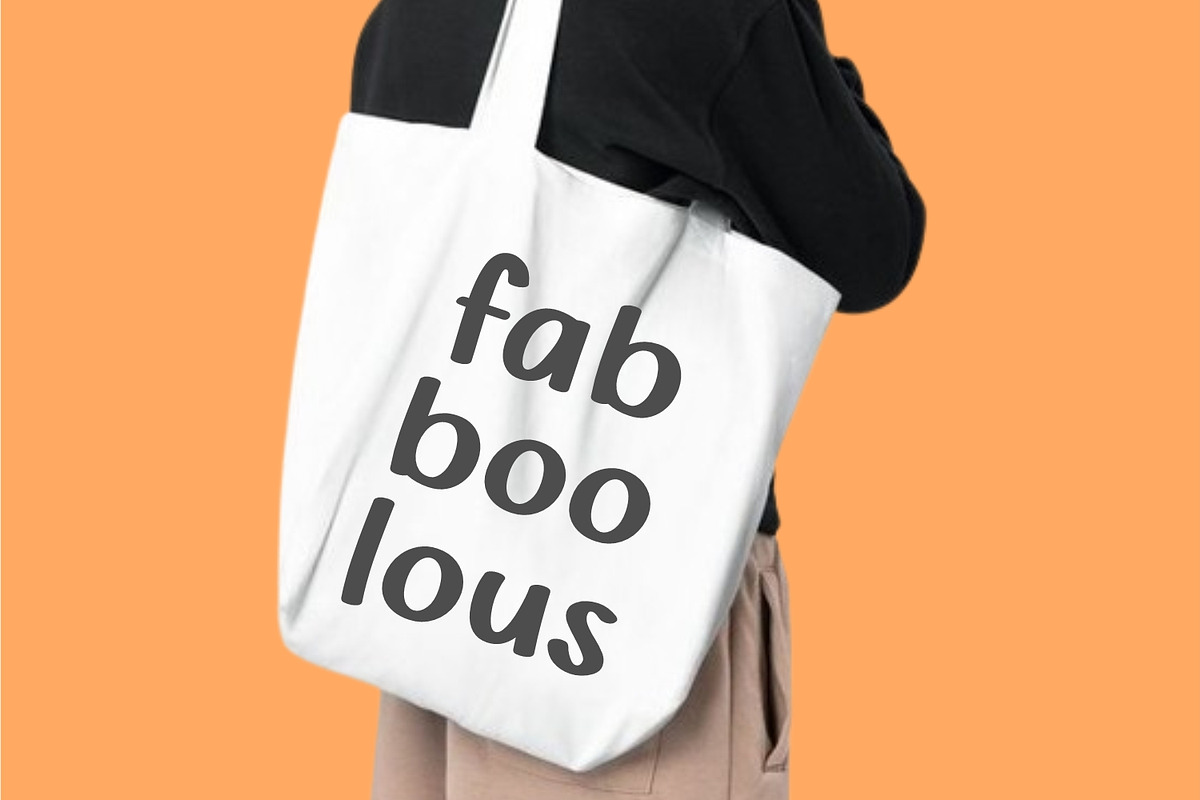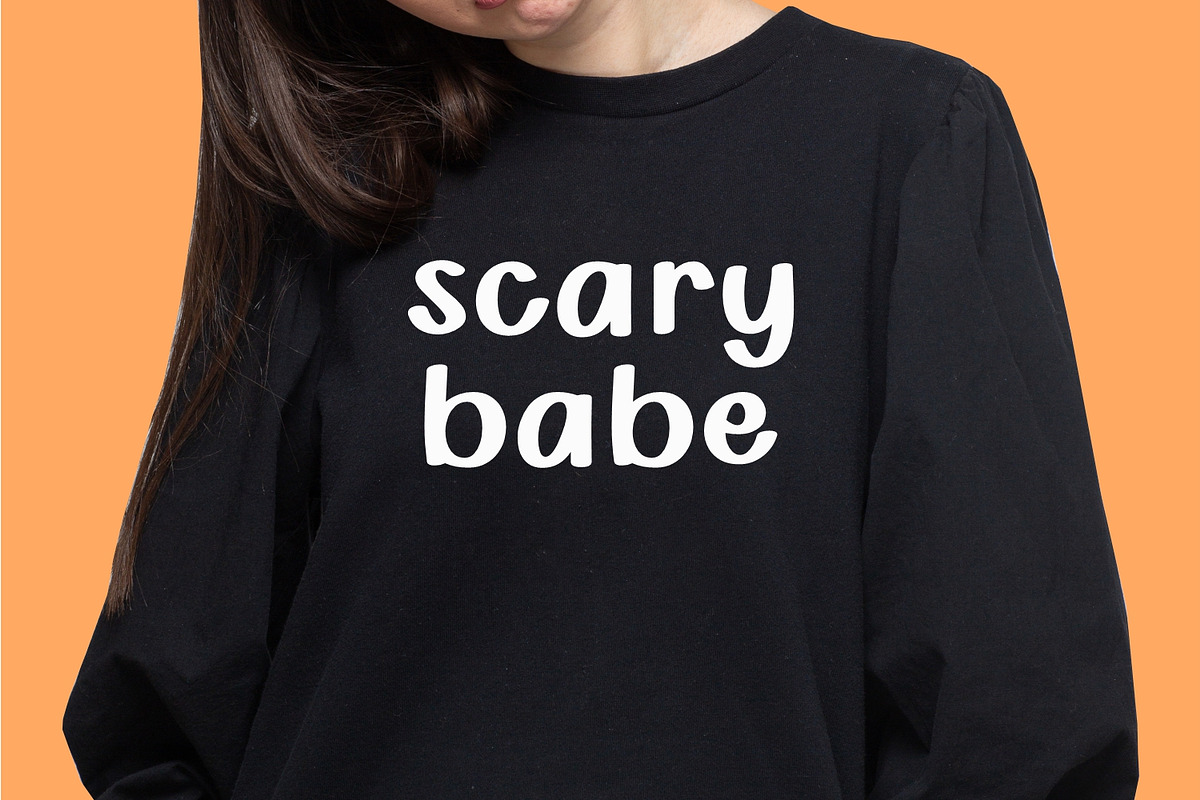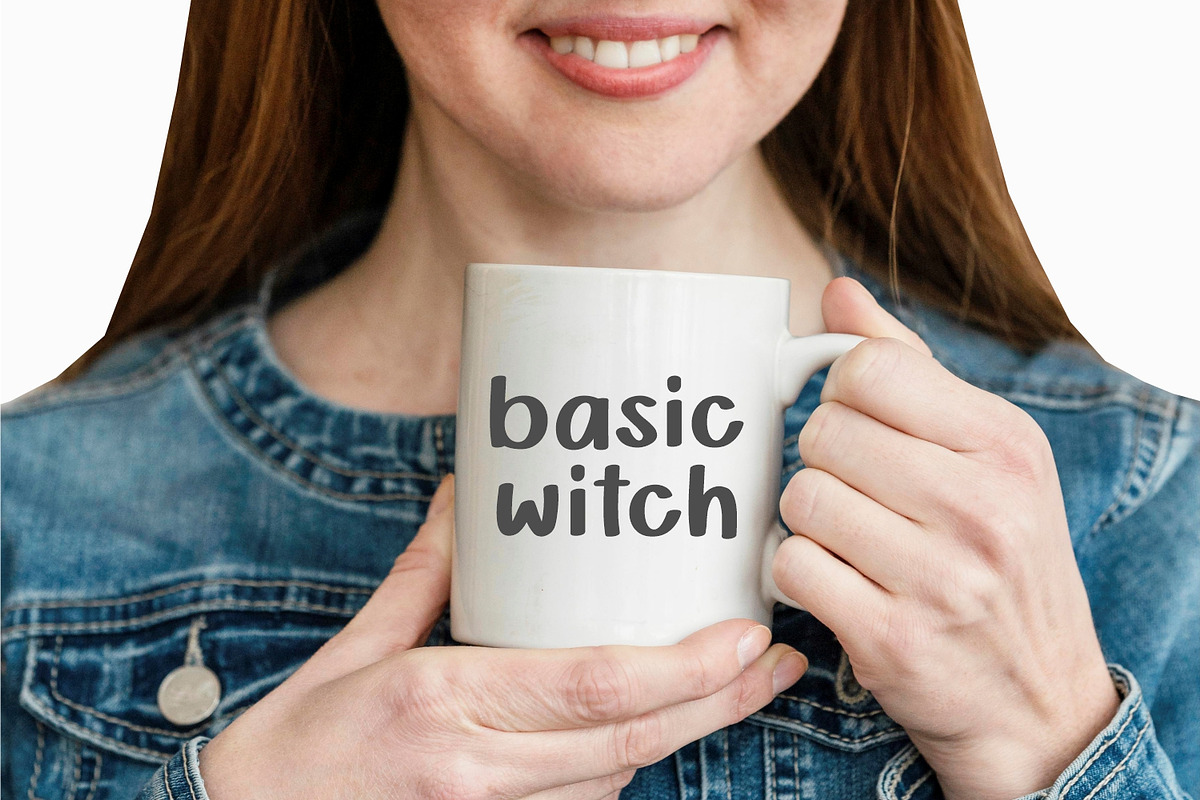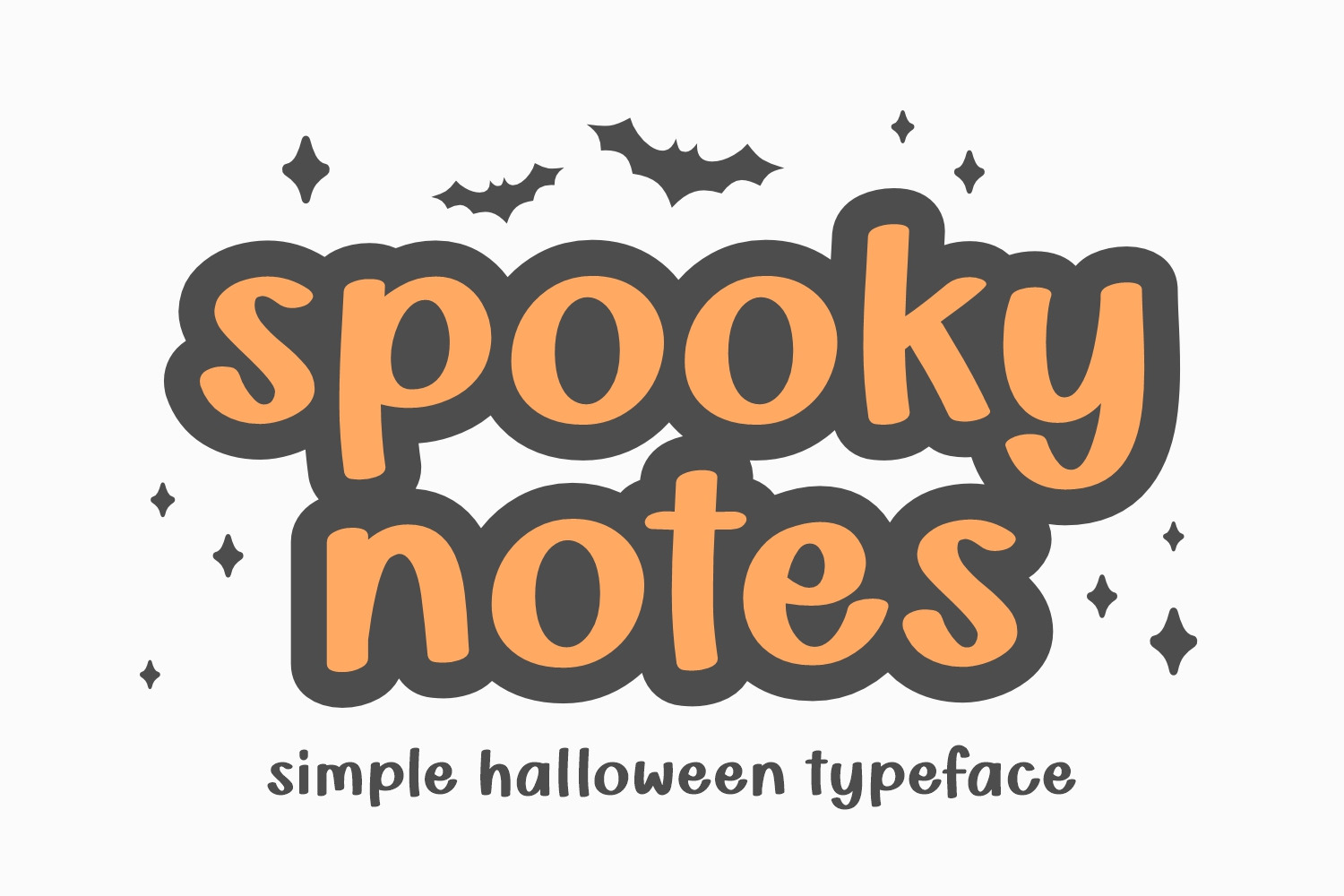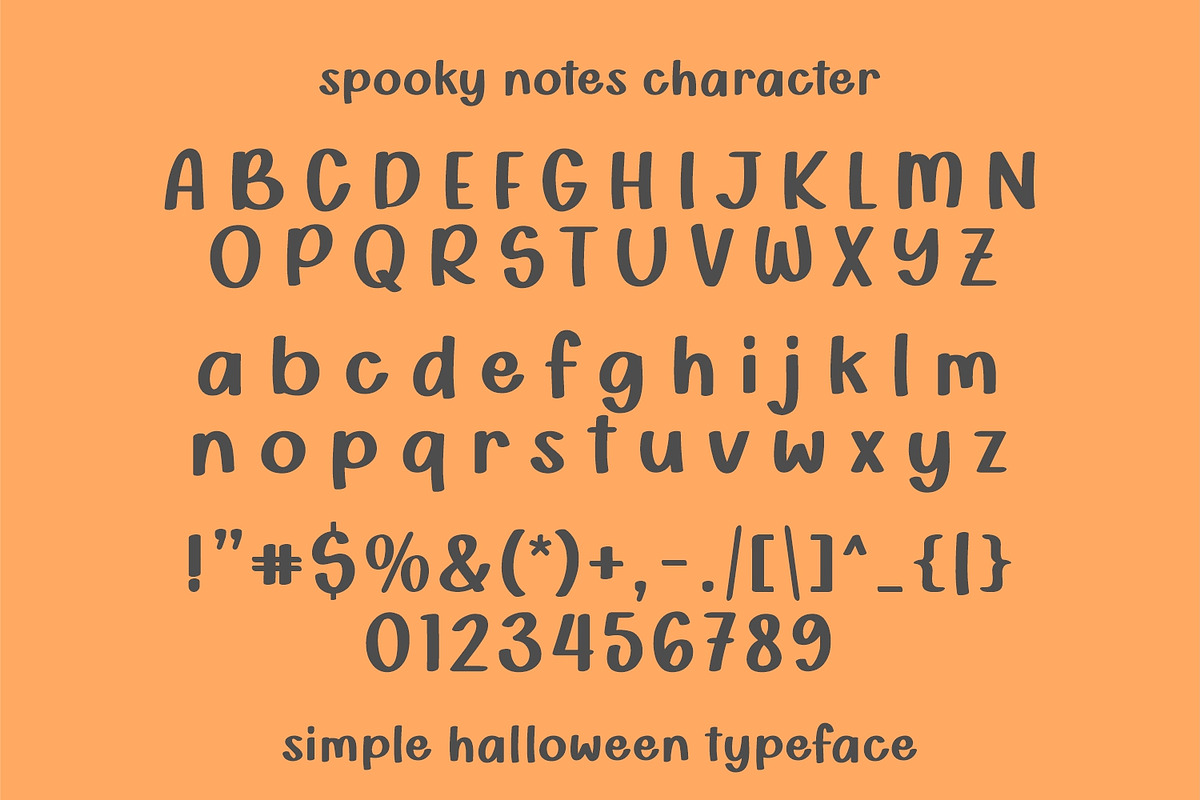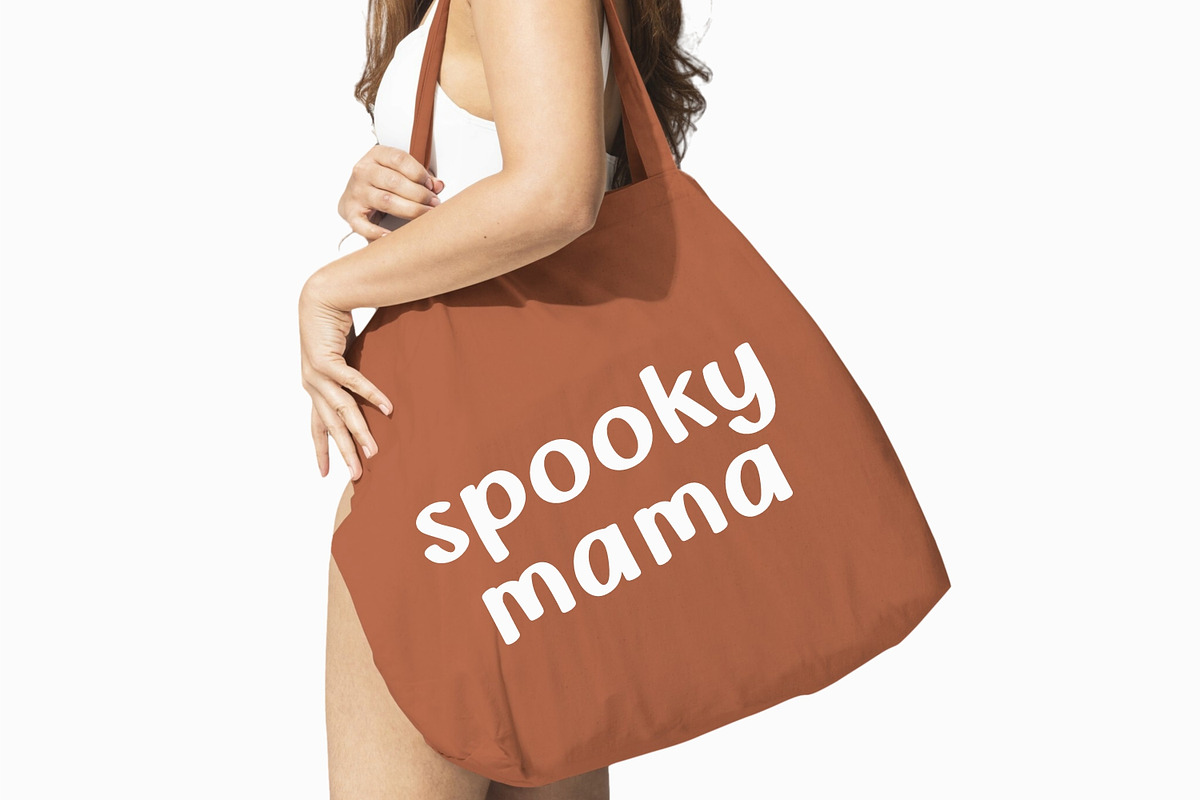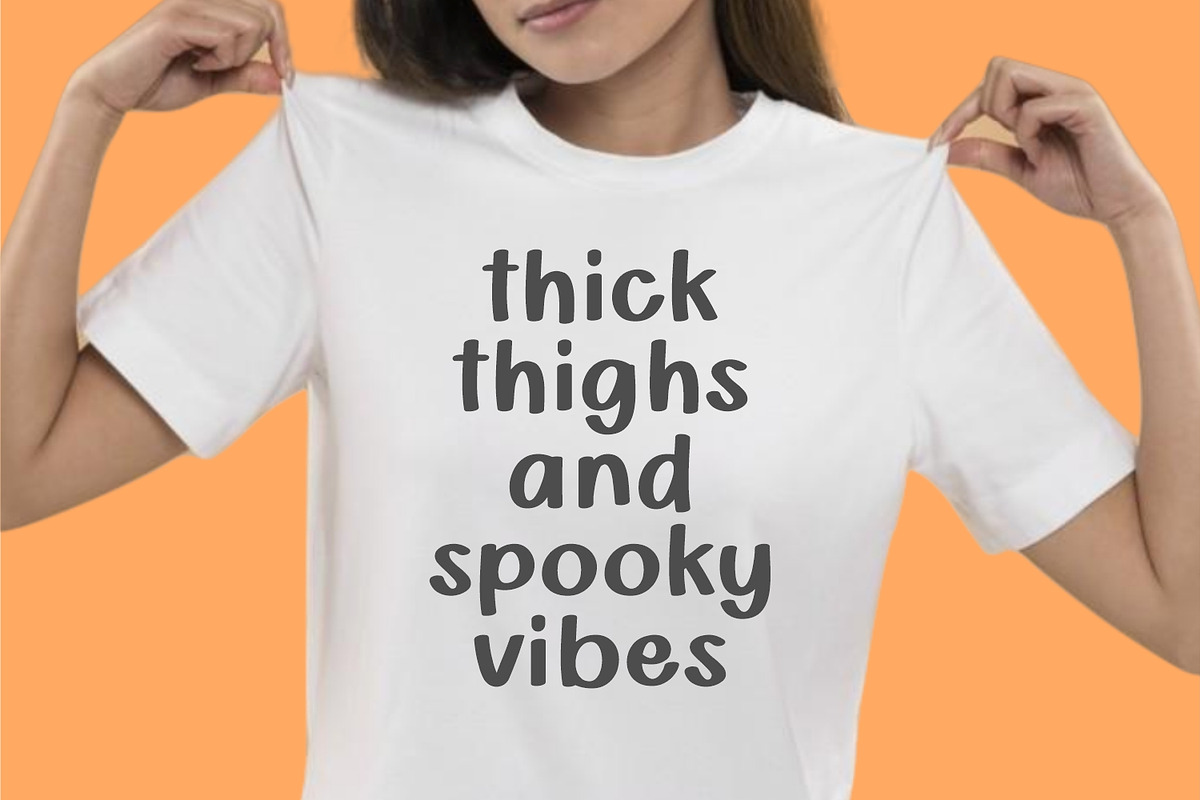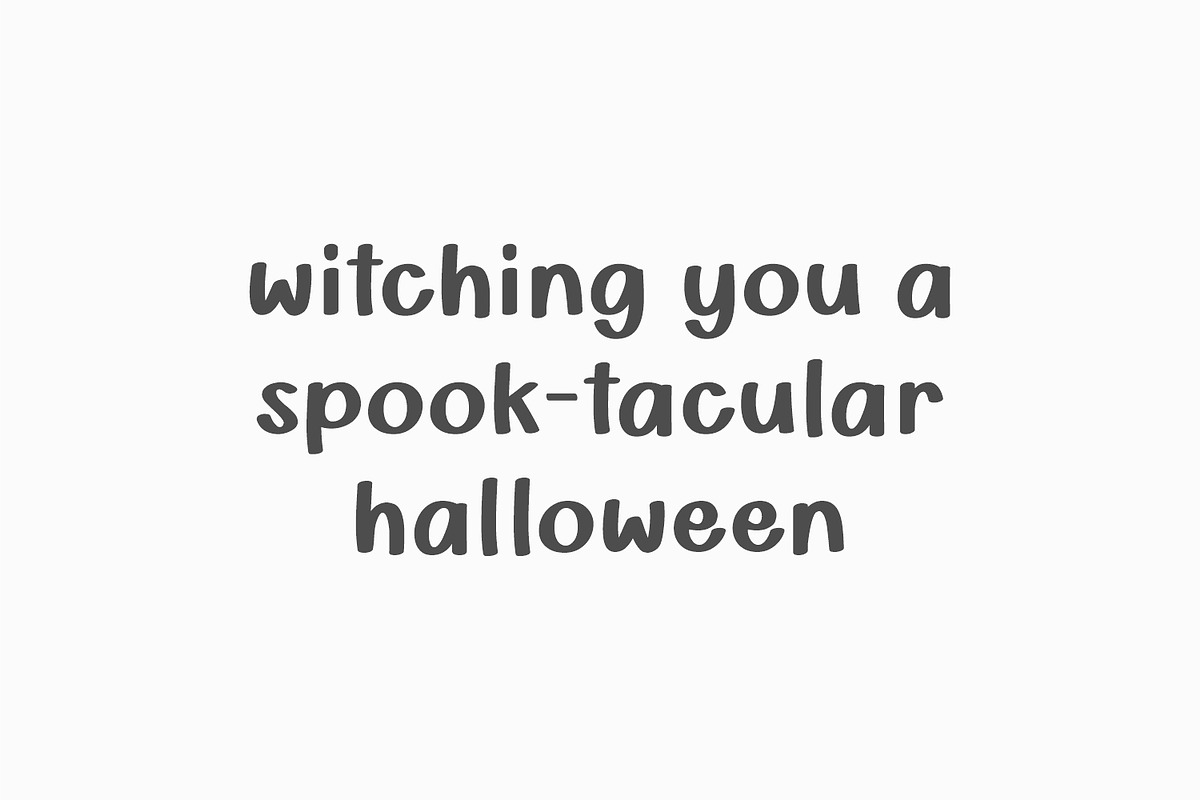
Spooky Notes - Halloween Font
Add an enchanting touch to your creative projects with Spooky Notes, a Halloween-themed font characterized by a whimsical handwritten style. This dynamic font, with its robust character, skillfully combines frightful charm with playful allure, perfect for crafting enthusiasts as it offers excellent readability. Watch your designs come to life, brimming with charming eeriness! Whether it’s print media like tees, tote bags, mugs, and cushions, or other fashionable accessories, Spooky Notes font is the perfect partner to make your Halloween celebrations genuinely memorable. Experience the magic of Spooky Notes font today, where enchanting mischief meets sophisticated elegance.